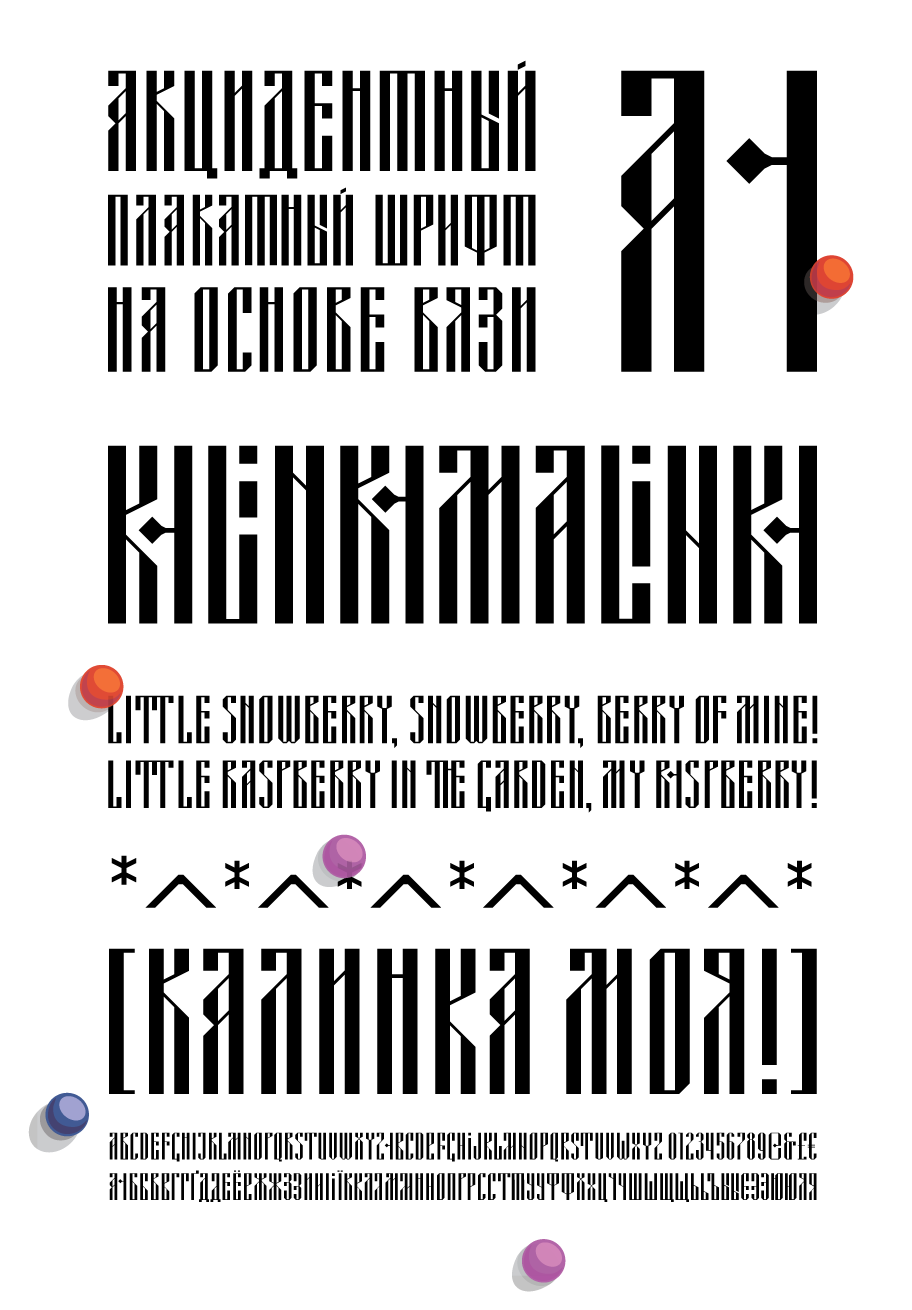
KalinkaMalinka is modern technocratic typeface based on ornamental Cyrillic script. The font supports different languages such as Spanish, English, Portuguese, German and French in Latin scripts and Ukrainian, Belorussian and Russian in Cyrillic. A variety of letter variants to ensure suitability.
KalinkaMalinka is perfect for titles and is not suitable for a large amount of text. Can be used in posters, billboards, signboards and encrypted patterns.